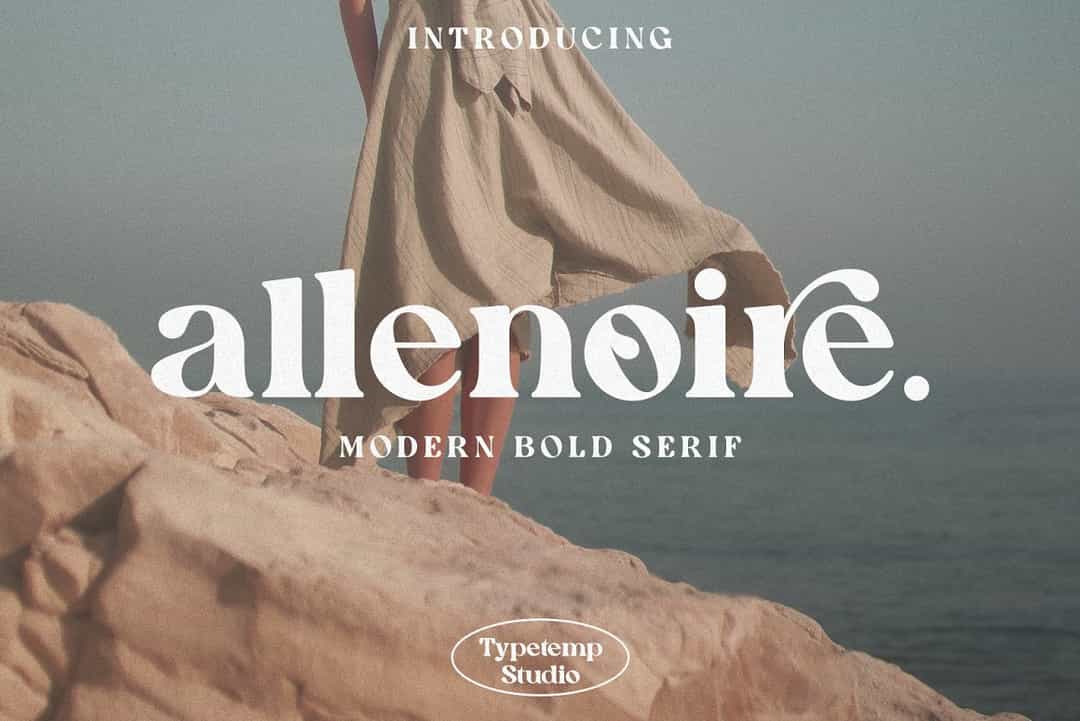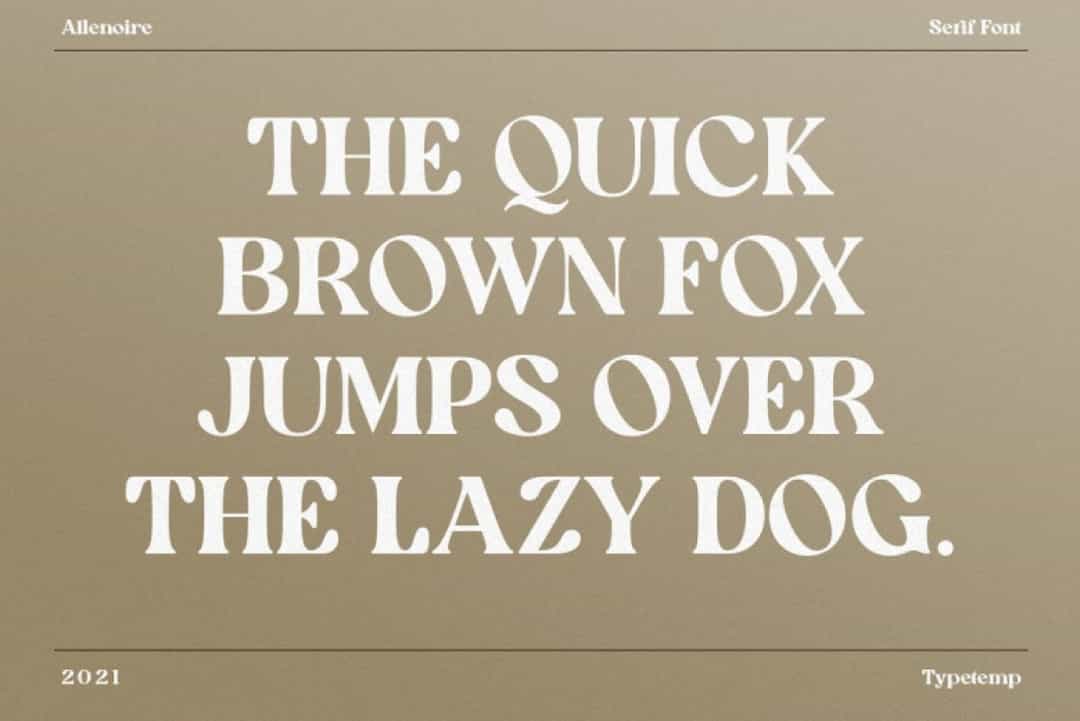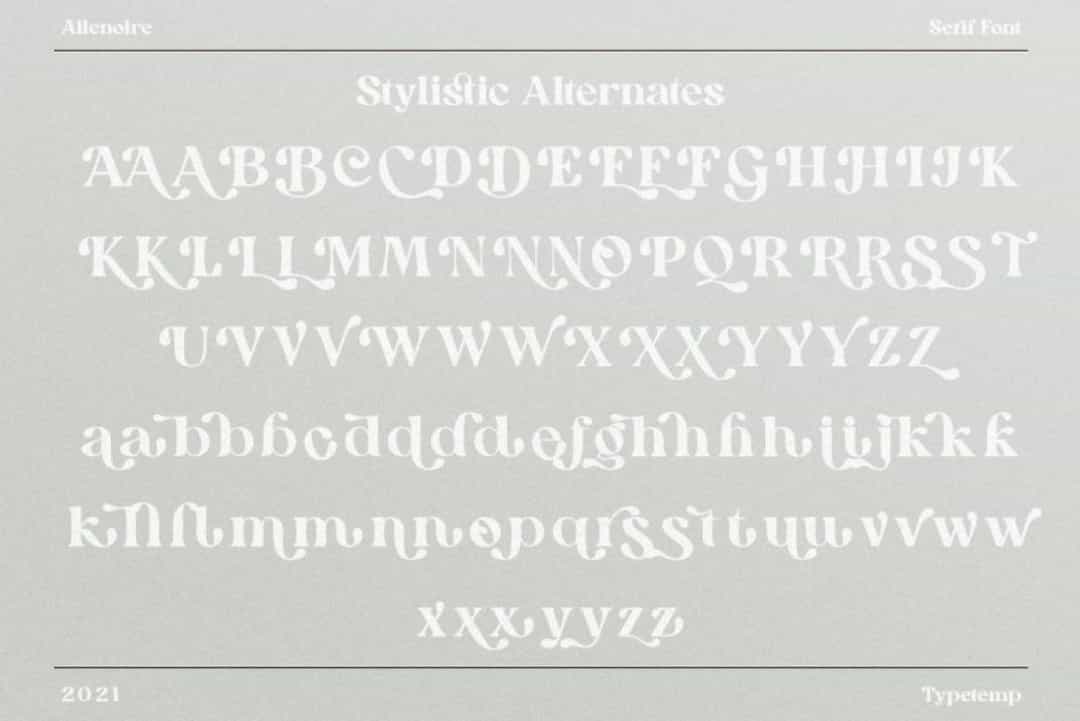
Allenoire Modern Bold Serif Font is an eye-catching font with both contemporary and retro flair, perfect for creating stunning designs, quotes, logos, blogs as well as designing/branding projects such as magazine imagery wedding invitations etc. With its ligatures and alternative fonts it can help create beautiful artwork in seconds! Suitable for creating stunning quotes & logos on blogs as well as designing/branding projects & more – including magazine imagery & invitations etc.